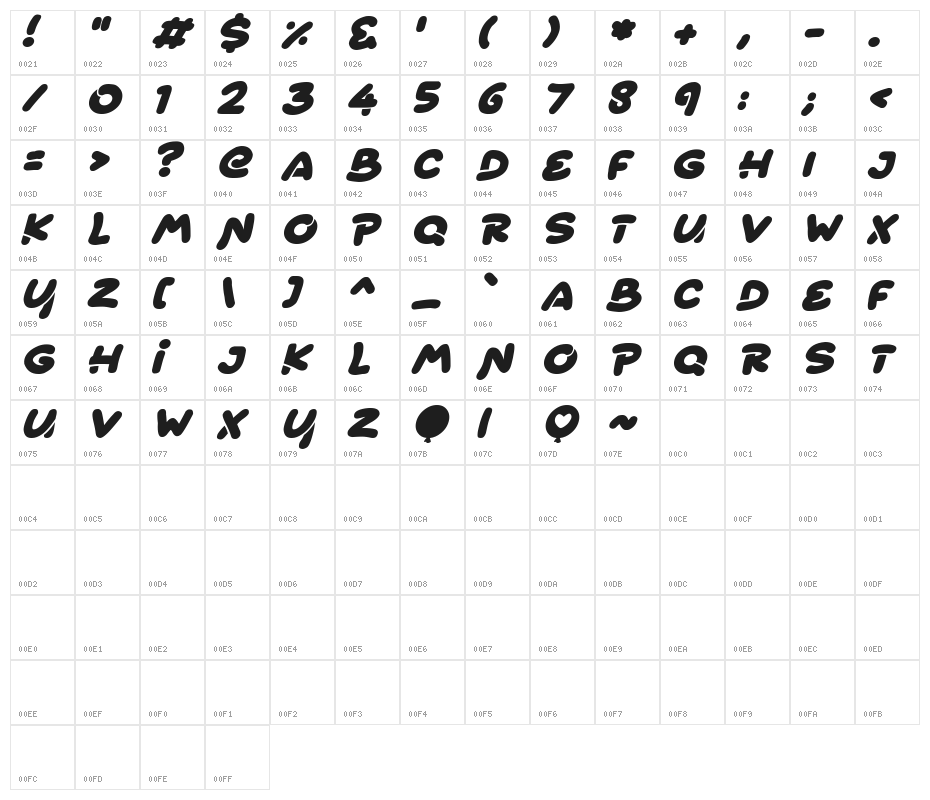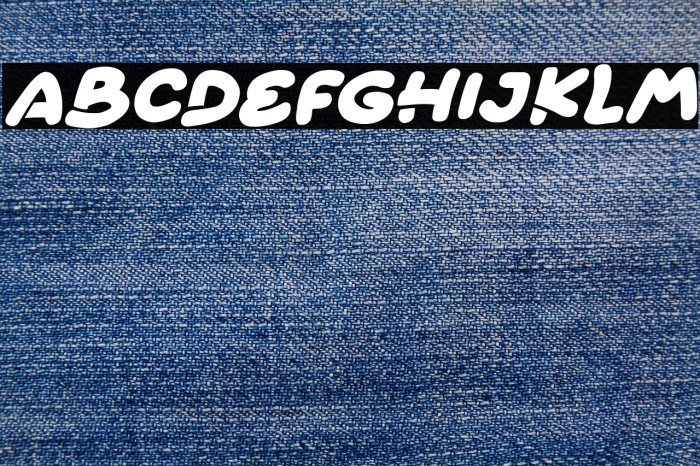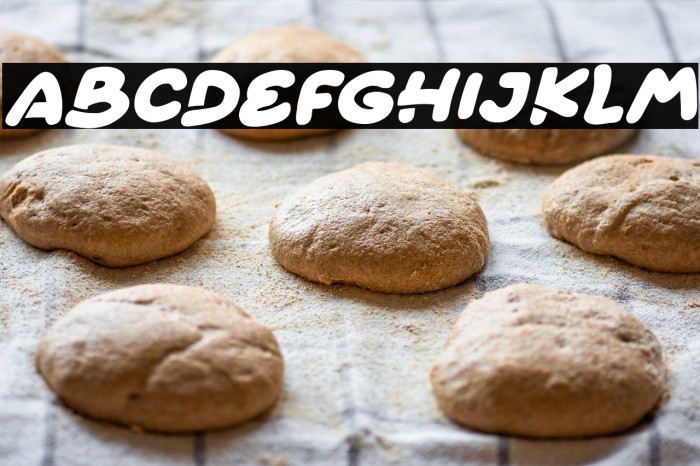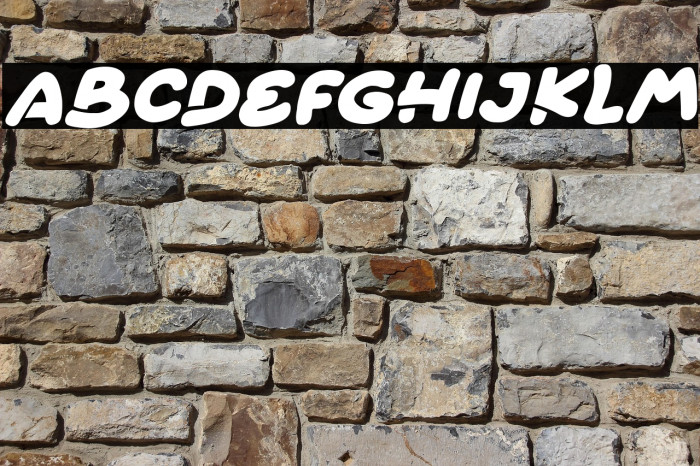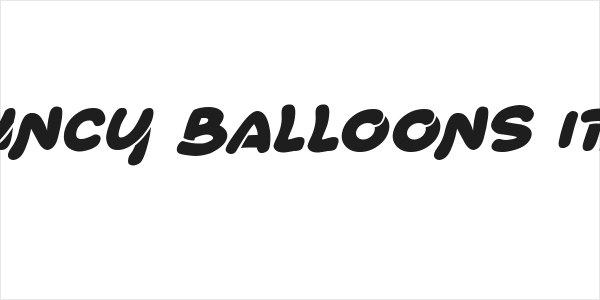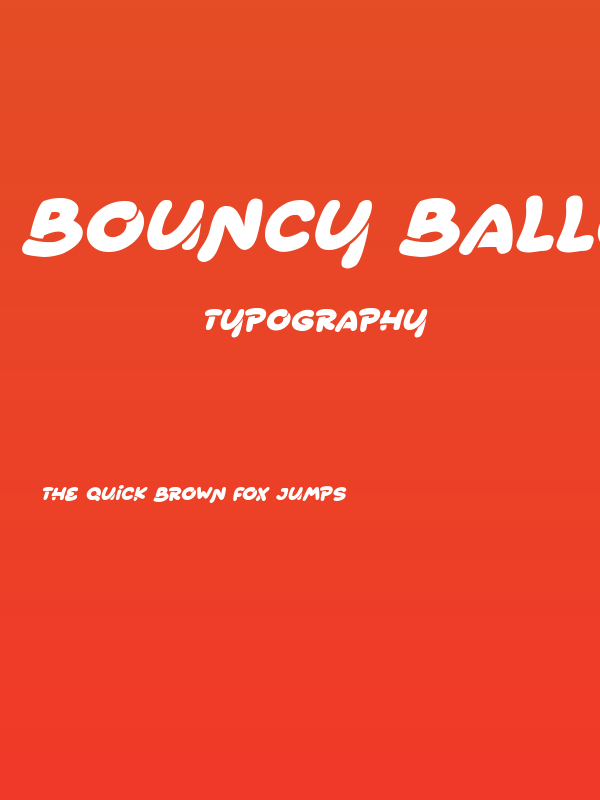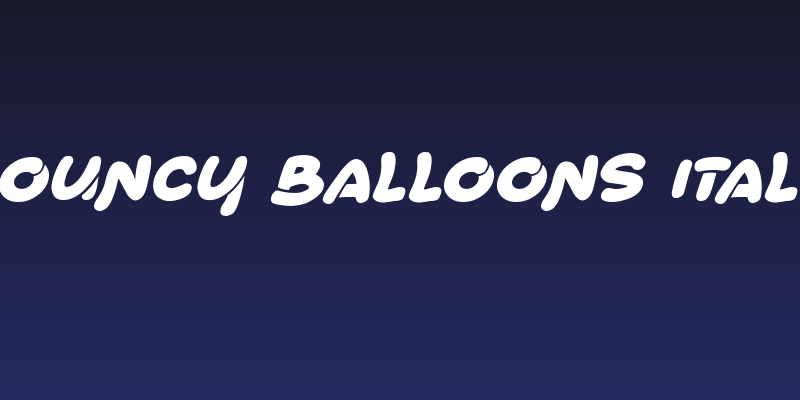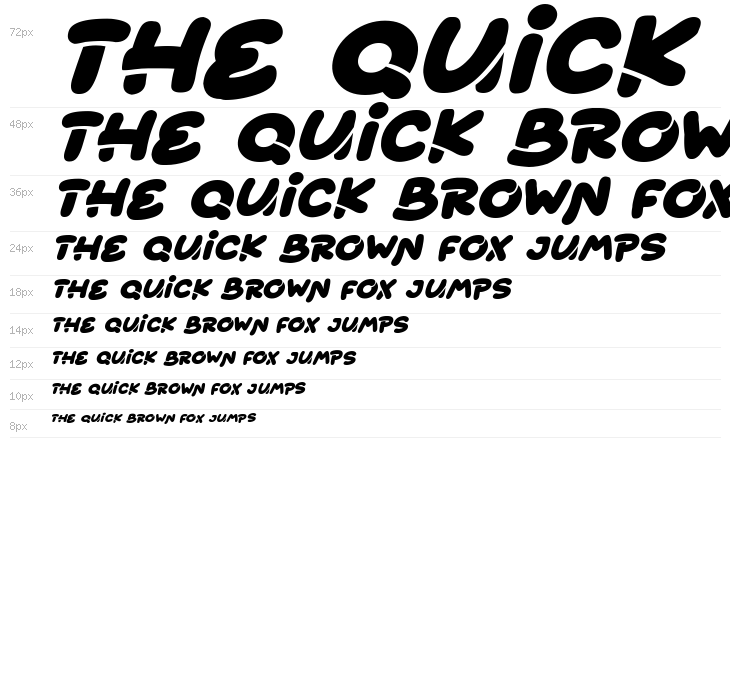
Bouncy Balloons Italic Font
Bouncy Balloons Italic Description
A playful, rounded display typeface with a bouncy, inflated appearance and a pronounced italic slant. The characters are bold, with soft curves and exaggerated forms, giving a balloon-like, whimsical effect. The spacing is generous, and the overall look is informal and fun.
Overall StyleDecorative, Playful, Whimsical
Use CaseHeadlines, Posters, Logos, Invitations
Proposed ProjectsChildren's party invitations, playful branding, posters, greeting cards, toy packaging.